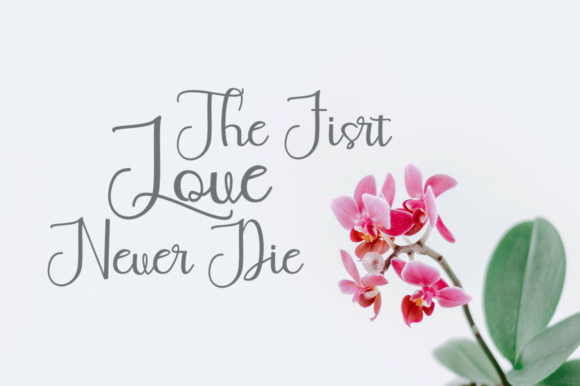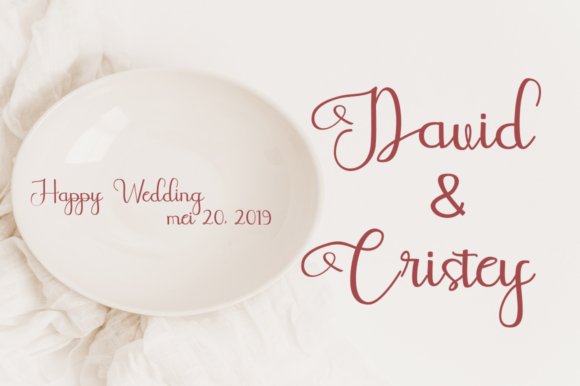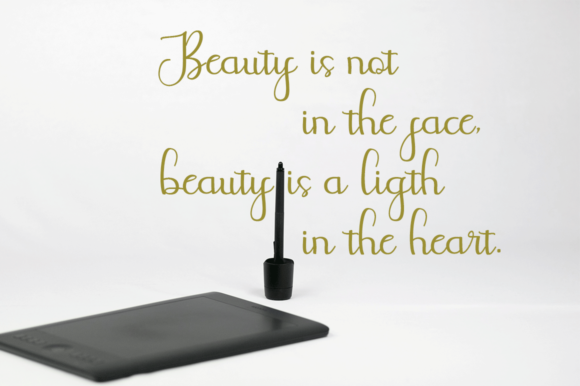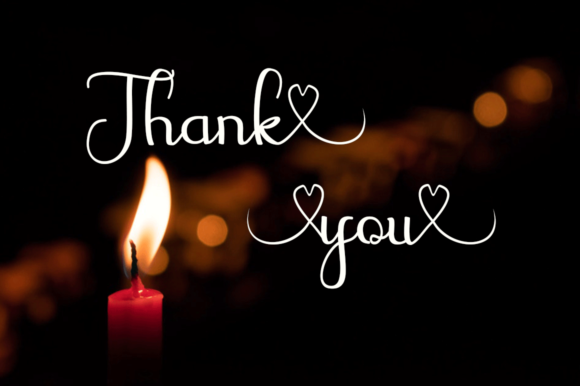
Varethy Font
About Varethy Font
Varethy is a light and romantic handwritten font with beautiful swashes. It will easily turn any creative project into a true eye catcher!